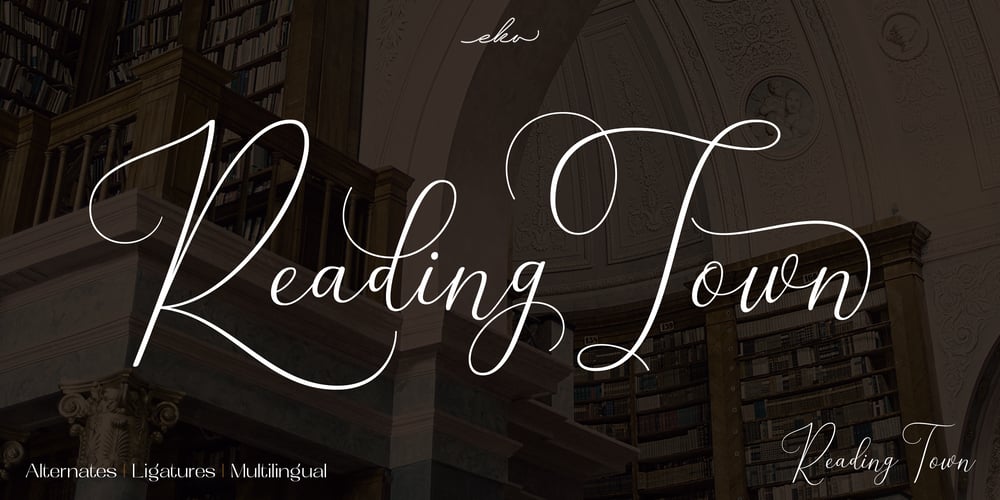
Reading Town
Reading Town font
Reading Town Font Family was designed by Putu Eka Hermawan and published by Ekahermawan. Reading Town contains 1 styles and family package options. Introducing Reading Town – came with alternative and ligatures characters.Transform your creative projects with Reading Town, a versatile script font designed to add a touch of elegance and sophistication to any design. Inspired by the beauty of hand-lettering, this font is perfect for a variety of uses, such as logo, branding, poster, magazines, labels, merchandise, invitation, presentation, advertising, quotes and so much more!FEATURES: OpenType support Playfull to use (with ligatures and alternates options) Multilingual support PUA Encoded Unlock endless creative possibilities with Reading Town. Whether you’re a designer, artist, or creative enthusiast, this script font will help your work stand out.